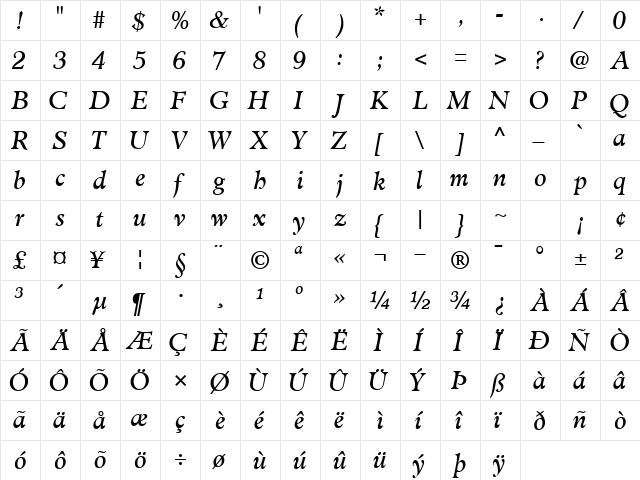
ClericSSK Italic
Design Context for ClericSSK Typeface
ClericSSK takes a measured approach to typography — its balanced proportions and neutral character make it a reliable workhorse for both digital and print work. Its italic angle brings a sense of urgency and motion to the letterforms.